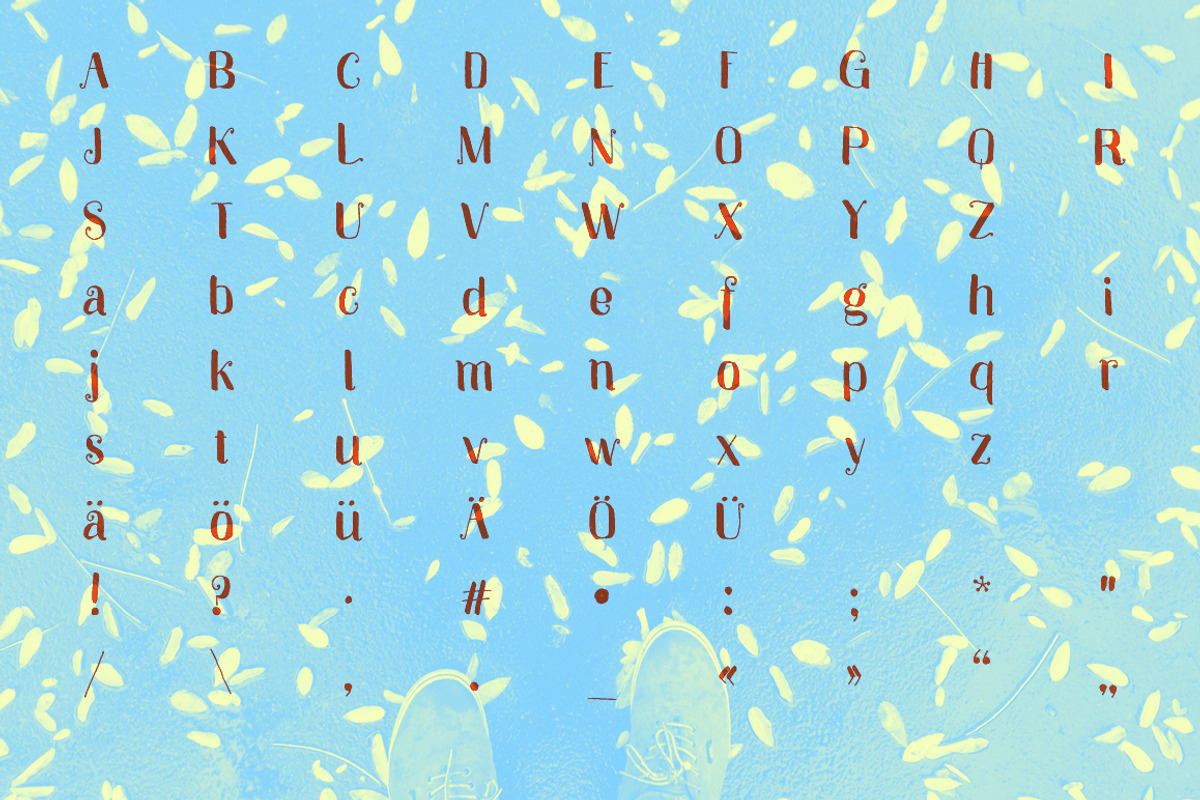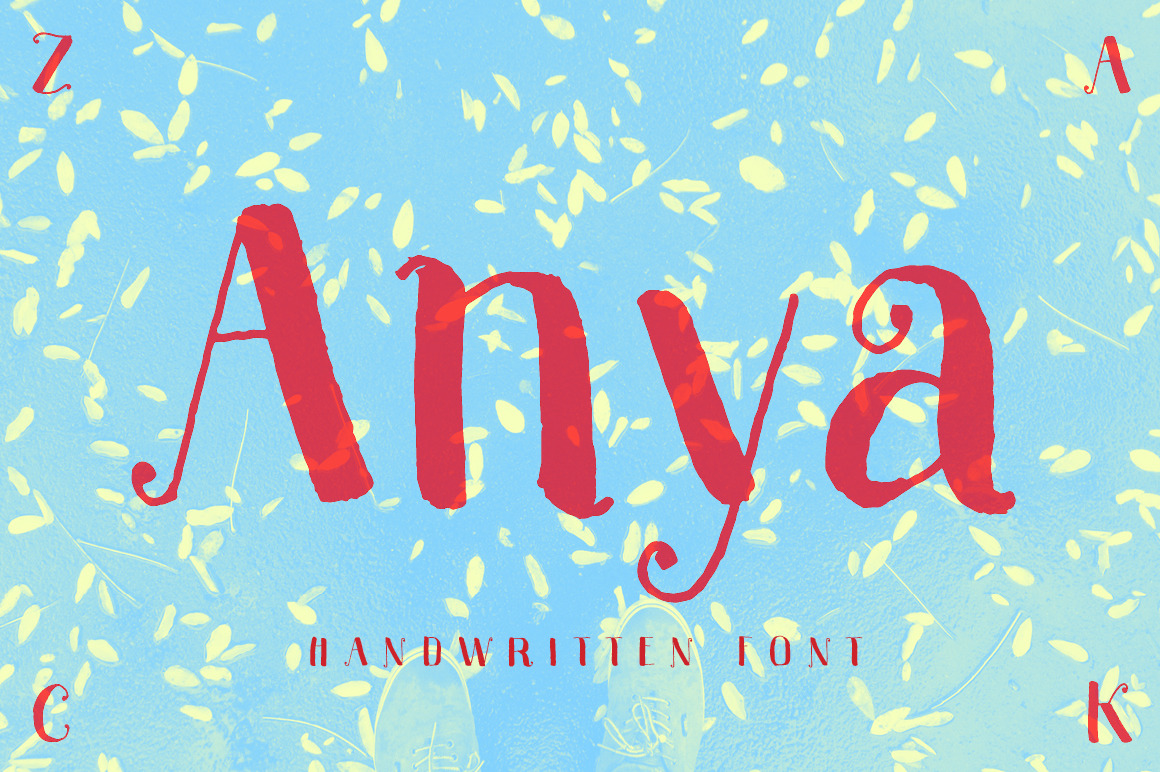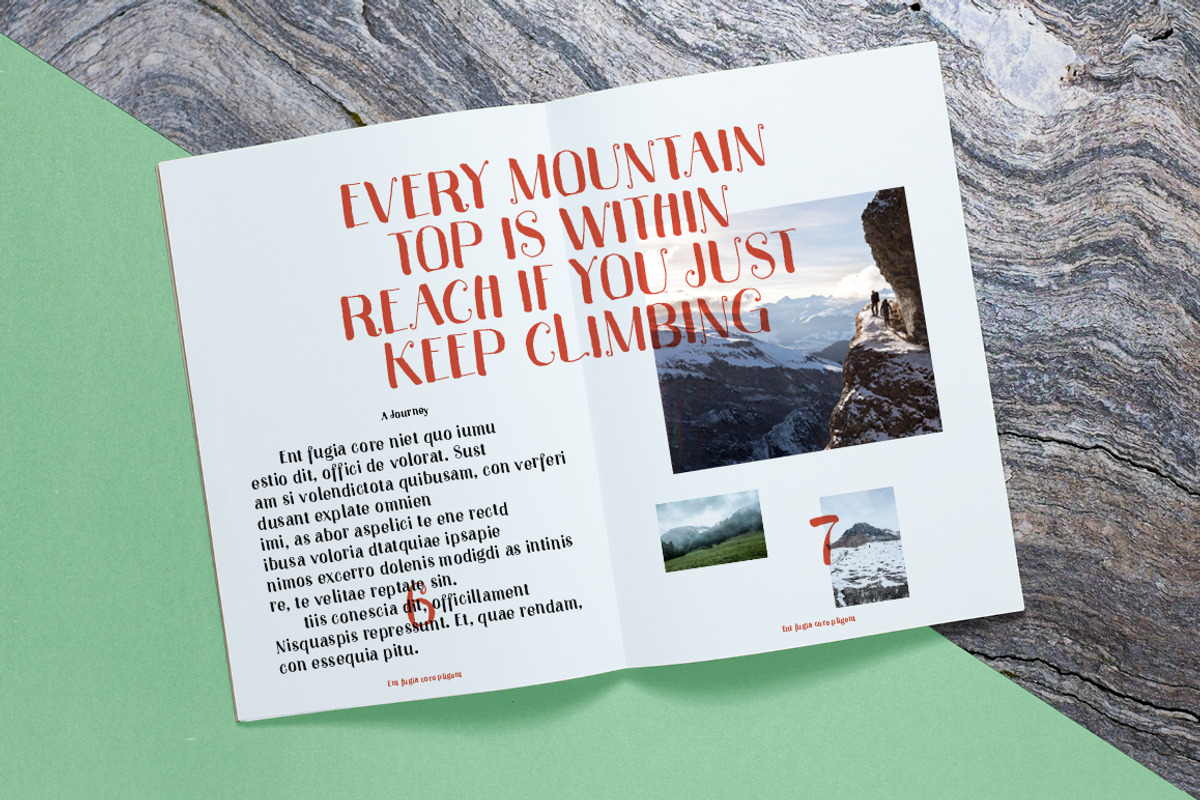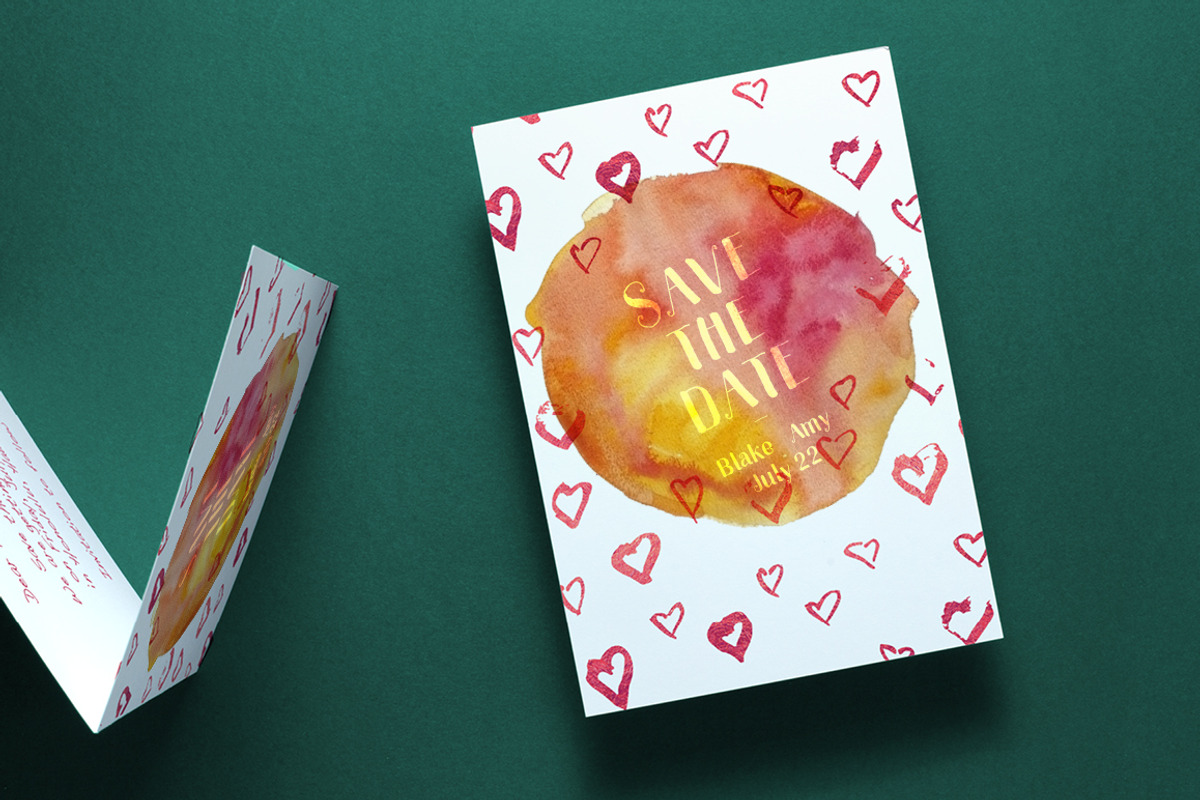
Anya – Beautiful Handwritten Font
Introducing: Anya is a handwritten font that looks great in every context. Just check out the product pictures above.
- Special Characters